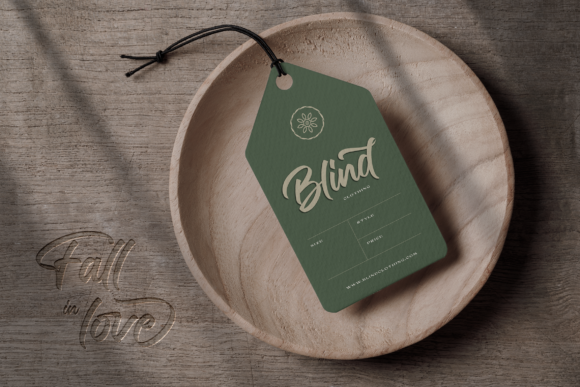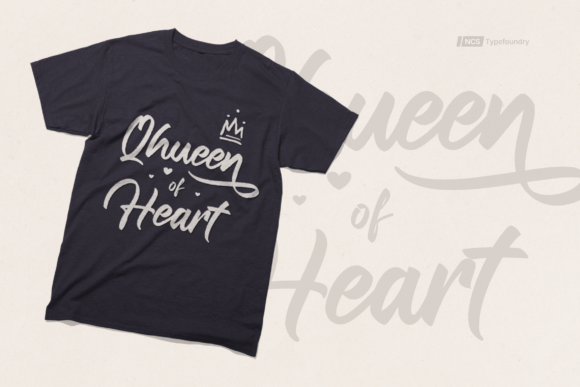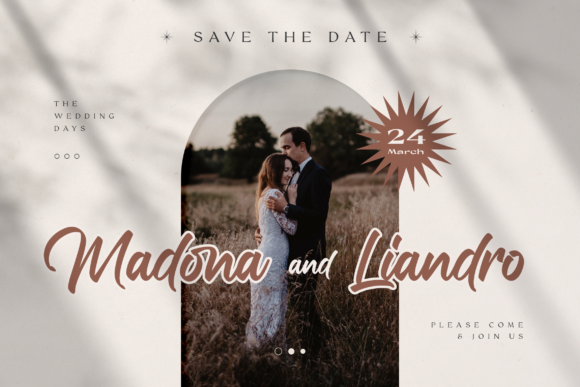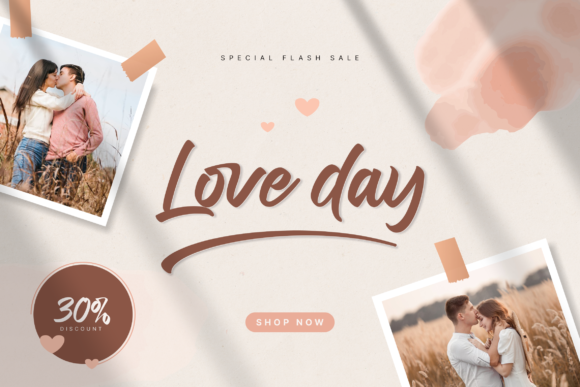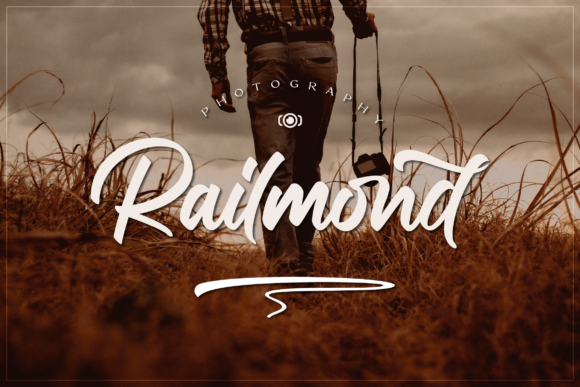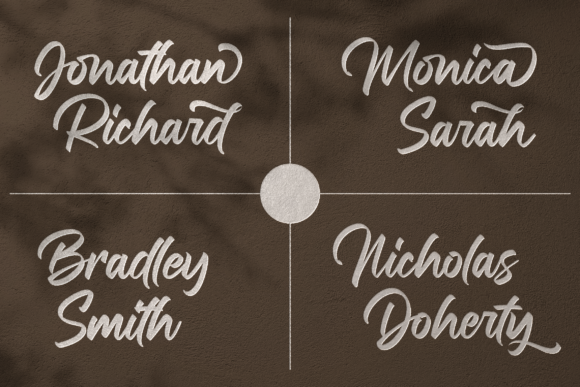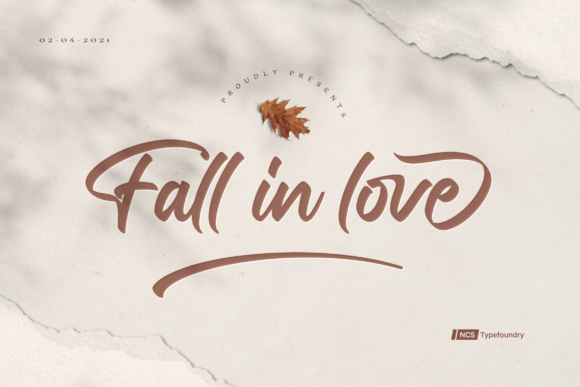
Fall in Love Font: The Perfect Cursive Script for Your Design Needs
Are you looking for a font that exudes romance, elegance, and a touch of whimsy? Look no further than the Fall in Love font, a beautiful cursive, paint-brushed handwritten font that’s perfect for a variety of design projects. In this article, we’ll dive into the details of this stunning font, explore its features, and discuss how you can use it to elevate your designs.
What is Fall in Love Font?
Fall in Love is a cursive, paint-brushed handwritten font that’s designed to add a personal touch to your designs. With its flowing script and delicate brushstrokes, this font is perfect for creating beautiful, one-of-a-kind designs that stand out from the crowd. Whether you’re designing wedding invitations, thank you cards, greeting cards, or logos, Fall in Love font is the perfect choice.
Key Features of Fall in Love Font
- Cursive Script: Fall in Love font features a beautiful cursive script that’s perfect for creating elegant and sophisticated designs.
- Paint-Brushed Handwritten: The font’s paint-brushed handwritten style gives it a unique, organic feel that’s perfect for adding a personal touch to your designs.
- Versatile: Fall in Love font is versatile and can be used for a variety of design projects, including wedding invitations, thank you cards, greeting cards, logos, and more.
- Elegant and Whimsical: The font’s elegant and whimsical style makes it perfect for designers who want to create beautiful, eye-catching designs that stand out from the crowd.
How to Use Fall in Love Font in Your Designs
Fall in Love font is perfect for a variety of design projects, including:
- Wedding Invitations: Use Fall in Love font to create beautiful, elegant wedding invitations that set the tone for the big day.
- Thank You Cards: Add a personal touch to your thank you cards with Fall in Love font, perfect for expressing gratitude and appreciation.
- Greeting Cards: Use Fall in Love font to create stunning greeting cards for special occasions, such as birthdays, anniversaries, and holidays.
- Logos: Fall in Love font is also perfect for creating beautiful logos that reflect your brand’s personality and style.
Tips for Getting the Most Out of Fall in Love Font
Here are some tips for getting the most out of Fall in Love font:
- Experiment with Colors: Fall in Love font looks beautiful in a variety of colors, so don’t be afraid to experiment and find the perfect color scheme for your design.
- Play with Pairings: Try pairing Fall in Love font with other fonts to create a unique and eye-catching design.
- Use it Sparingly: While Fall in Love font is beautiful, it can be overwhelming if used too much. Use it sparingly to create a balanced design.
Fall in Love font is a beautiful, elegant, and whimsical cursive script that’s perfect for a variety of design projects. With its paint-brushed handwritten style and flowing script, this font is sure to add a personal touch to your designs. Whether you’re a designer, crafter, or DIY enthusiast, Fall in Love font is a must-have in your font collection. So why not fall in love with this stunning font and take your designs to the next level?